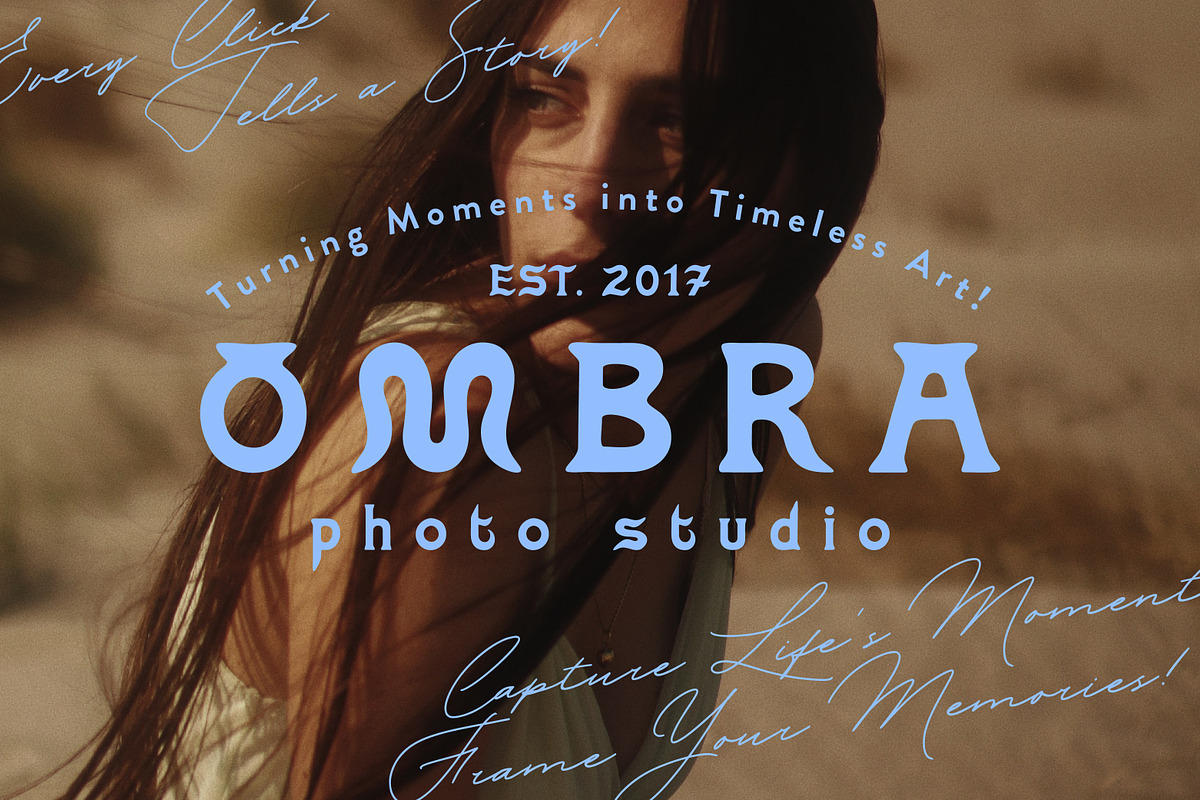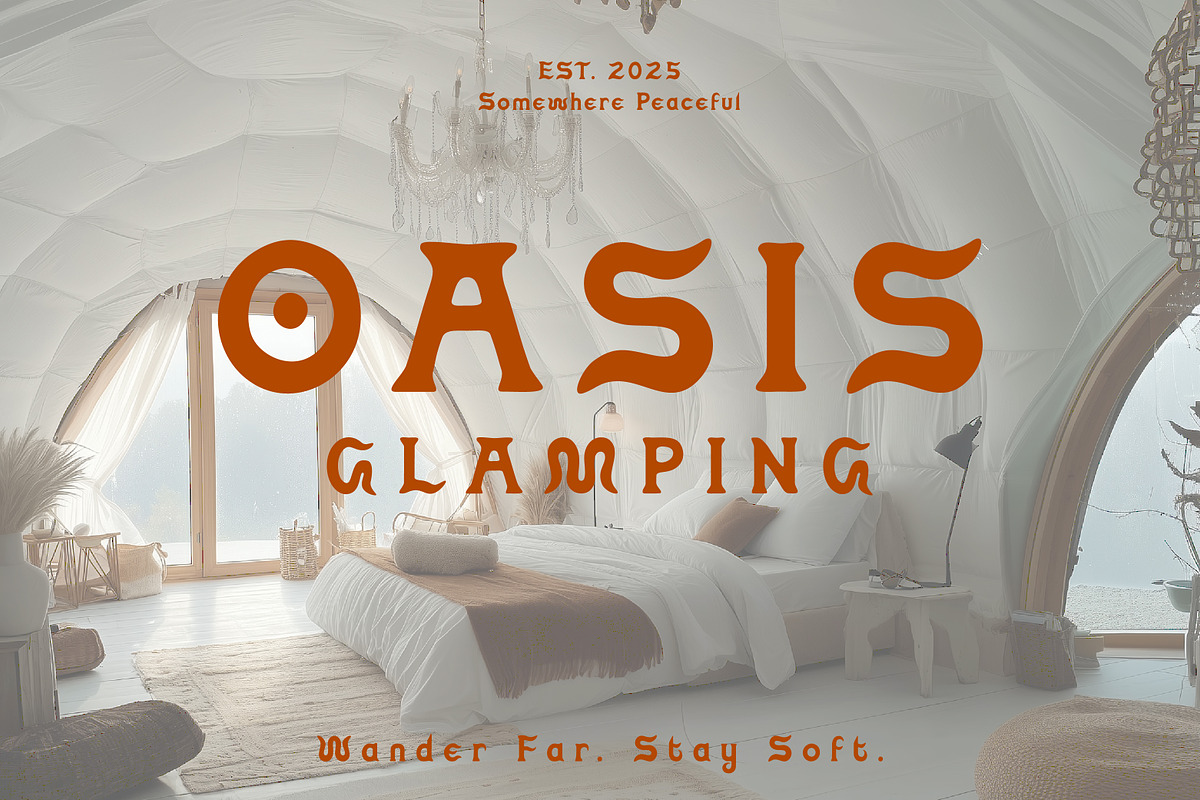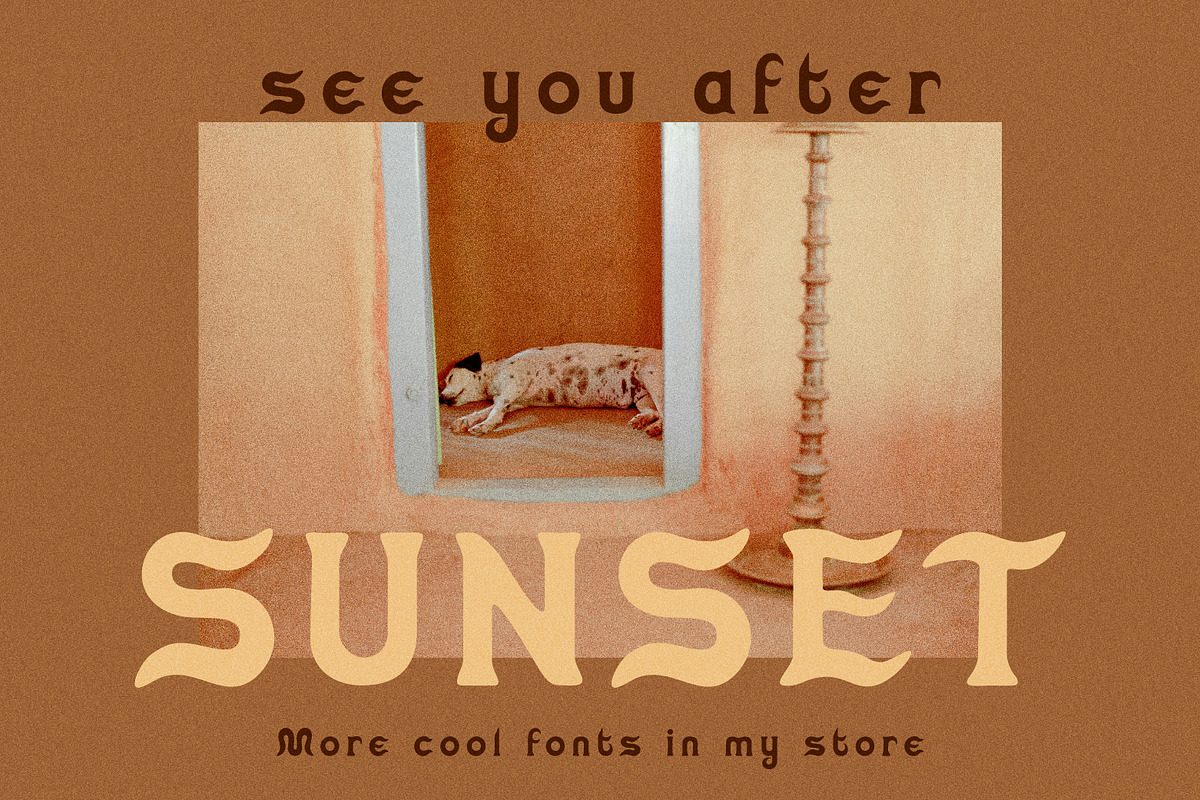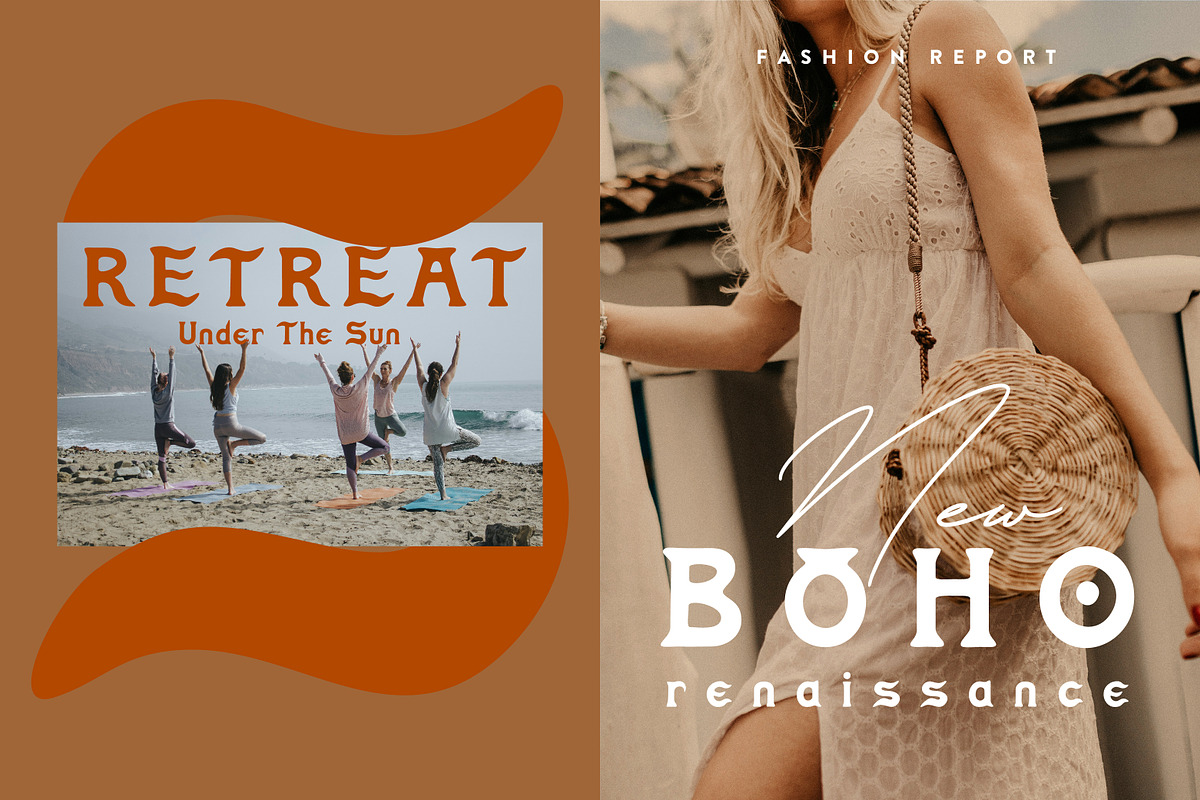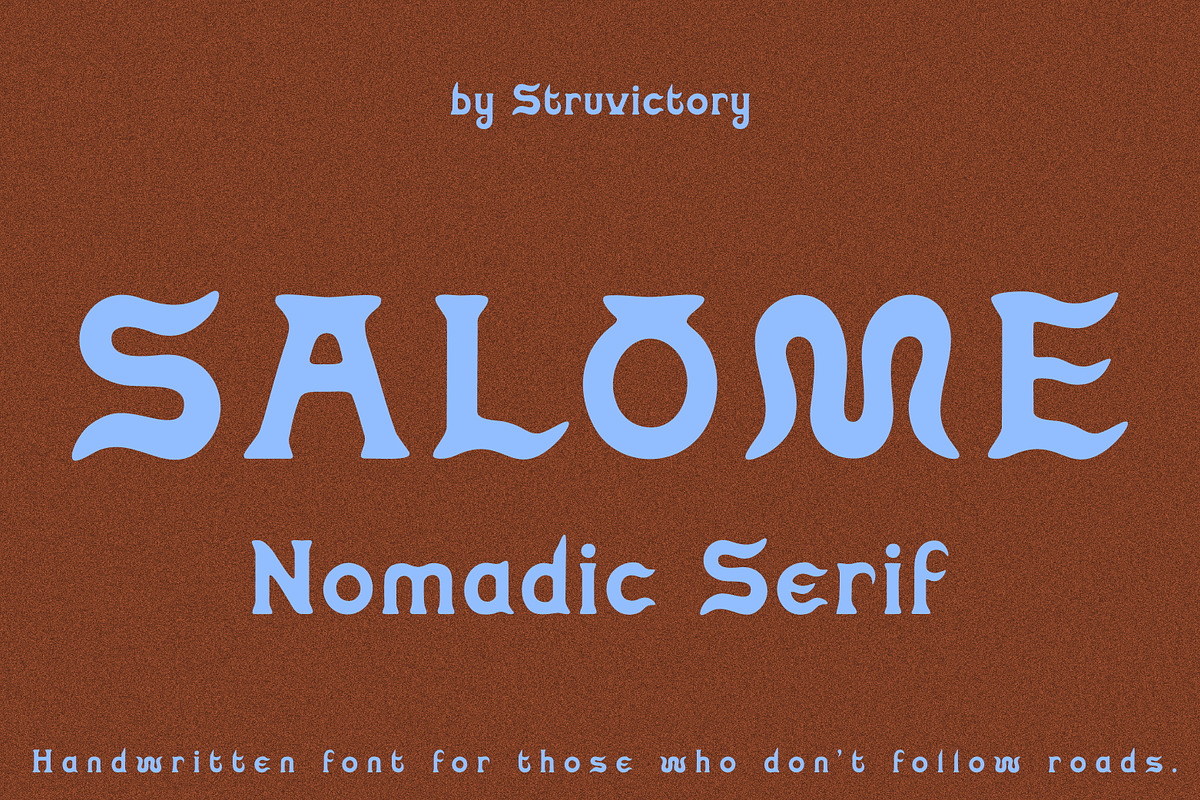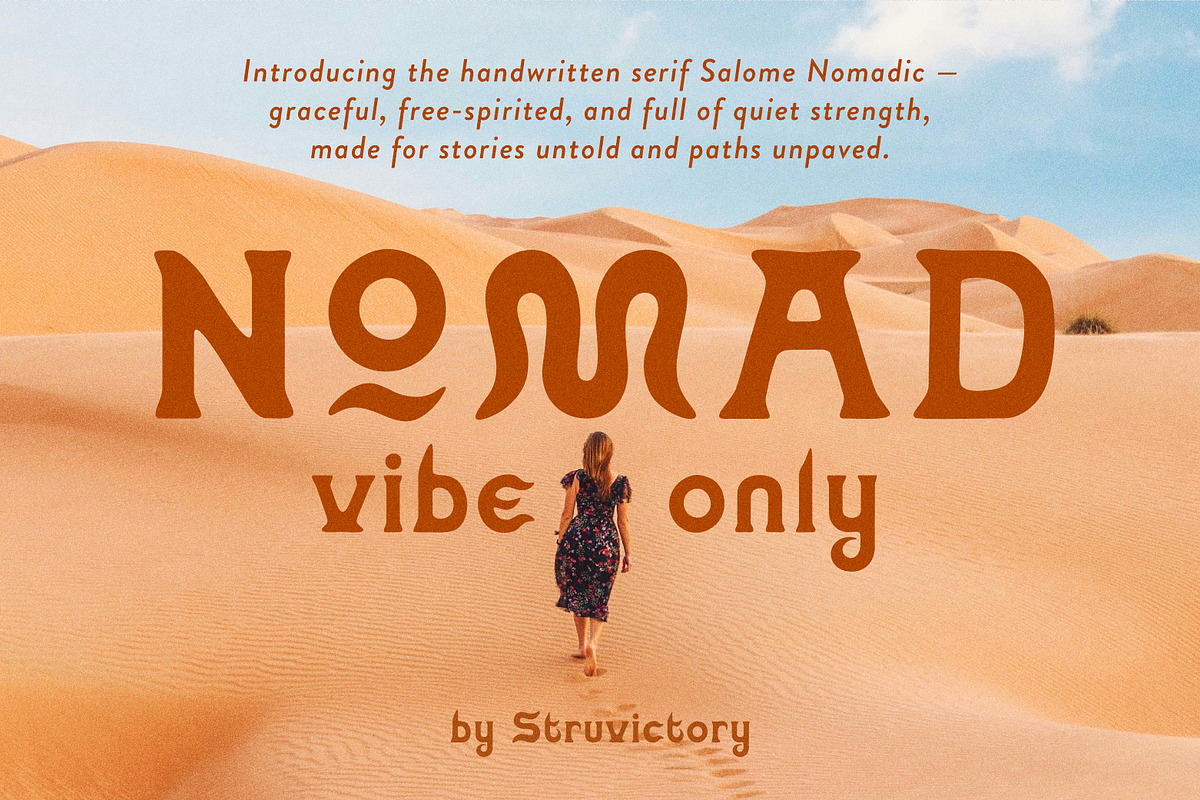
Salome Nomadic Handwritten Logo Font
Salome Nomadic is a handwritten serif font that blends refined character with a free-spirited attitude. With sun-worn curves, tall letterforms, and subtle imperfections, it captures a quiet elegance that feels both earthy and elevated. Perfect for modern boho branding, glamping identities, editorial titles, or sun-drenched packaging, this font carries the spirit of wanderers and storytellers. It includes stylistic alternates for the letter "O" to add variety and personality to your designs. The font supports the most popular latin-based languages.